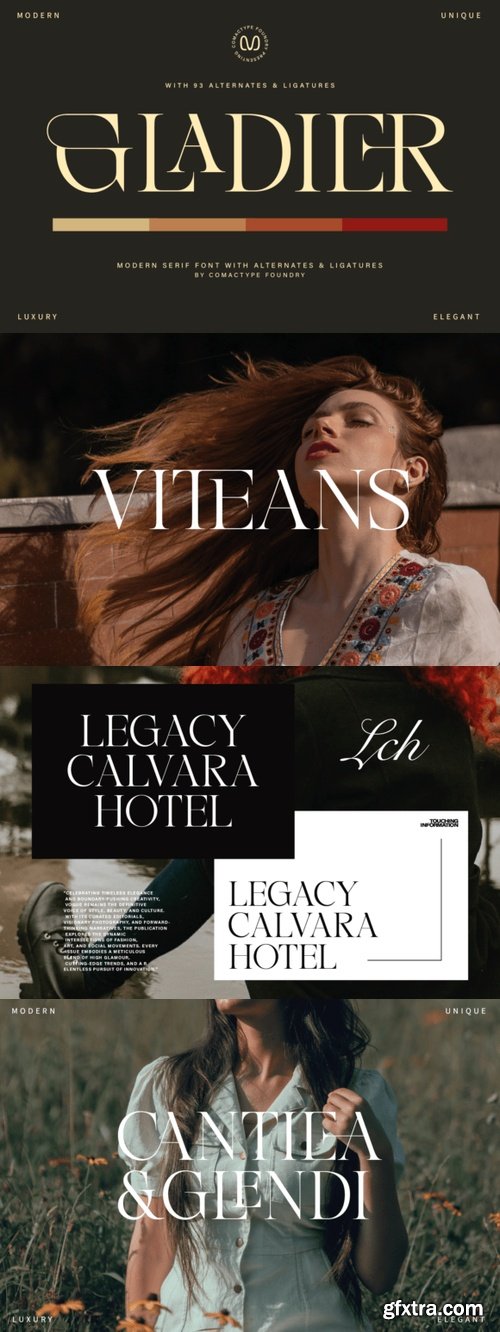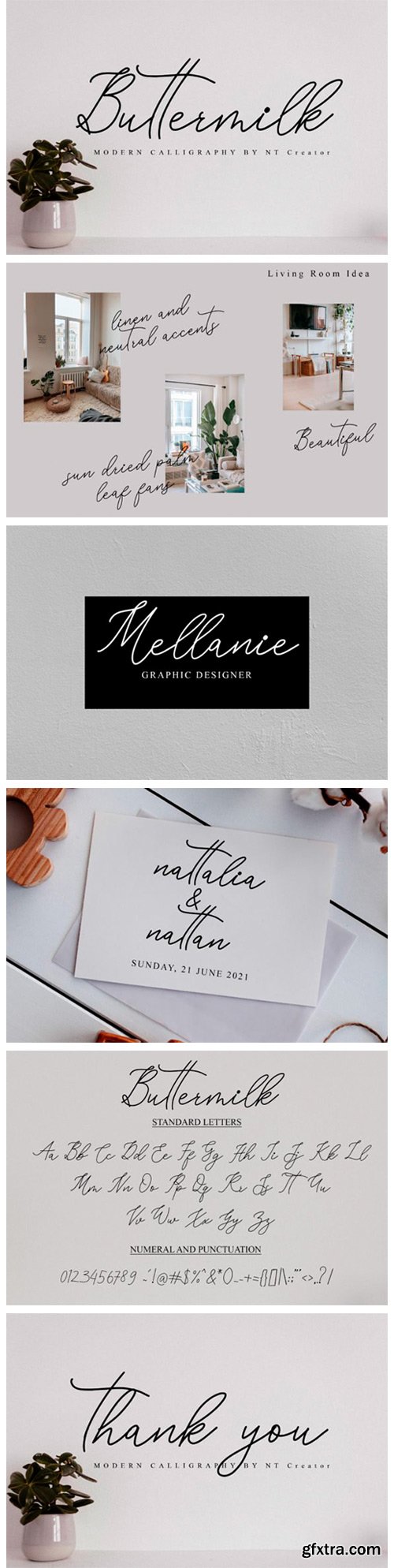
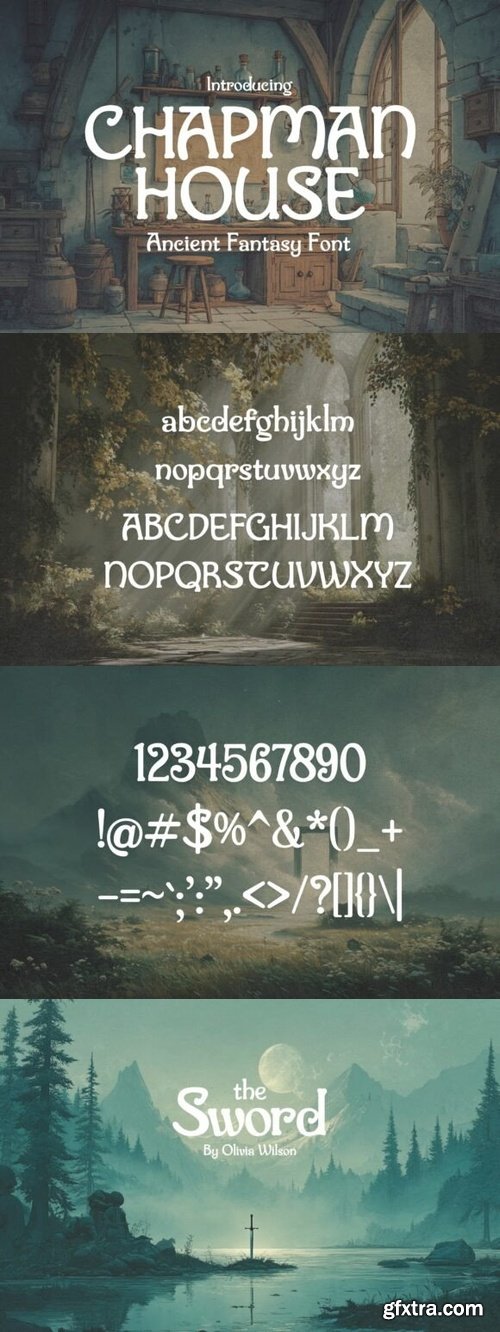
- Step into the realm of legends with Chapman House.
- Forged in the fires of fantasy and steeped in the ink of ancient scrolls, Chapman House is a medieval-inspired typeface designed for creators who dare to dream beyond the veil of reality.
- With letterforms echoing the calligraphy of forgotten kingdoms, this font evokes the magic of weathered tomes, royal decrees, and arcane prophecy. Every curve and serif breathes with the spirit of adventure, perfect for conjuring up boundless worlds, legendary quests, mystical branding, and titles that demand reverence.
- Whether you’re crafting the logo of a guild, the title of a fantasy novel, a game interface steeped in lore, or spellbinding packaging, Chapman House delivers with unmistakable charm and gravitas. Its characters are both readable and ornamental, balancing function with pure fantastical flair.
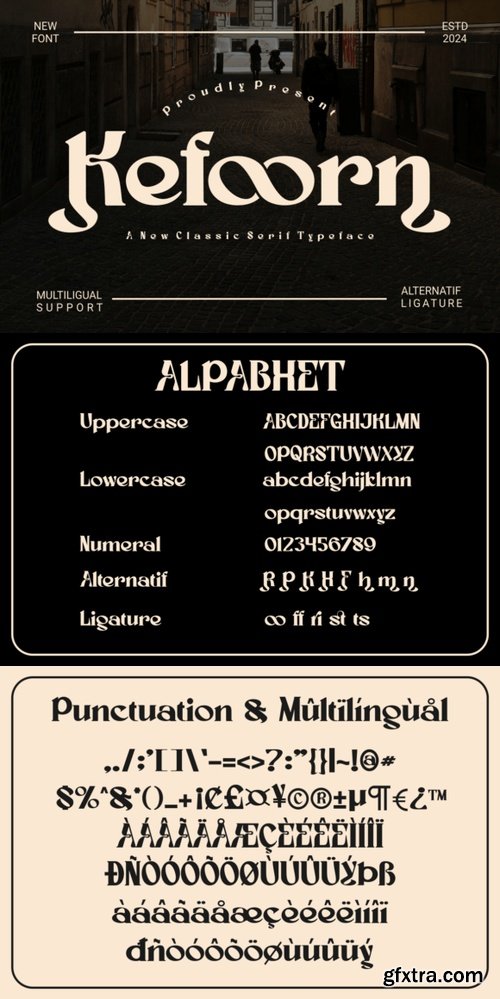
- Kefoorn is a bold and stylish serif typeface with a modern classic twist. Its sharp yet elegant characters, combined with unique ligatures, make it the perfect font for branding, editorial layouts, and high-end packaging. Designed with multilingual support, Kefoorn effortlessly elevates your design projects with a timeless flair.
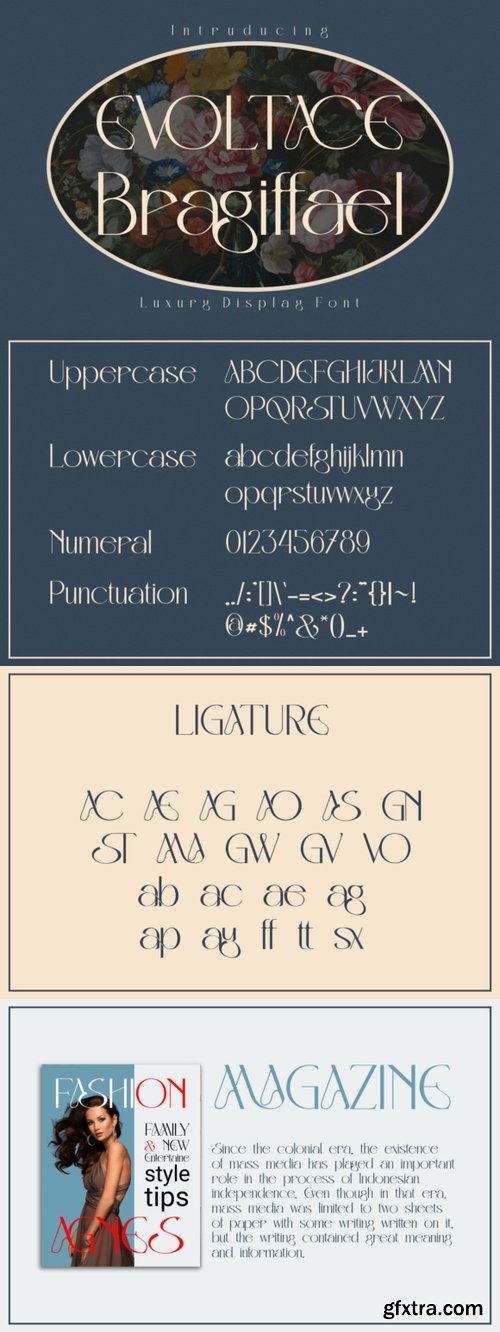
- Evoltace Bragiffael is a high-class luxury display font that captures attention with its sophisticated, artistic letterforms and refined details. Ideal for logos, fashion branding, and event invitations, Evoltace embodies elegance and exclusivity. Its unique glyphs and alternative characters make every design feel curated and couture.
- Bubble Bloom is a bubbly and joyful font that will add a splash of fun to all your creative projects! With its rounded, playful letterforms, this font is perfect for kids’ themes, party invitations, product packaging, stickers, and social media posts.
- It’s PUA encoded and works beautifully with Cricut, Silhouette, and other crafting software.
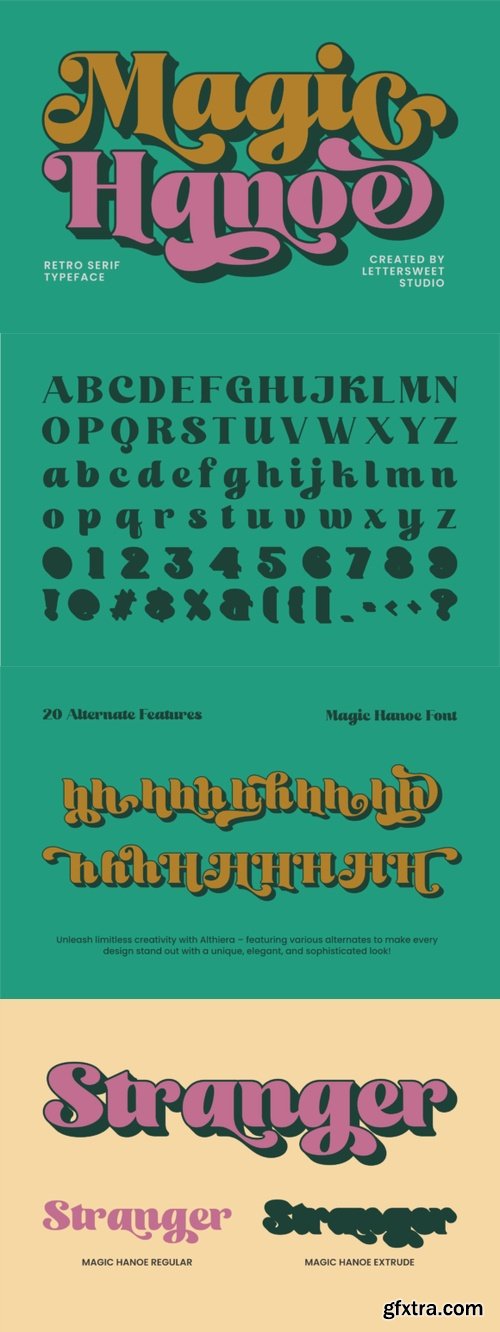
- Step into a world of classic charm with a modern twist through Magic Hanoe, a captivating retro serif font full of personality and flair! Created by Lettersweet Studio, this typeface features expressive curves, bold strokes, and playful vintage vibes that will make your designs truly stand out.
- Perfect for creative projects like vintage posters, unique logos, product packaging, album covers, and retro-inspired branding. Magic Hanoe combines nostalgic style with contemporary energy, bringing a memorable touch to any visual concept.
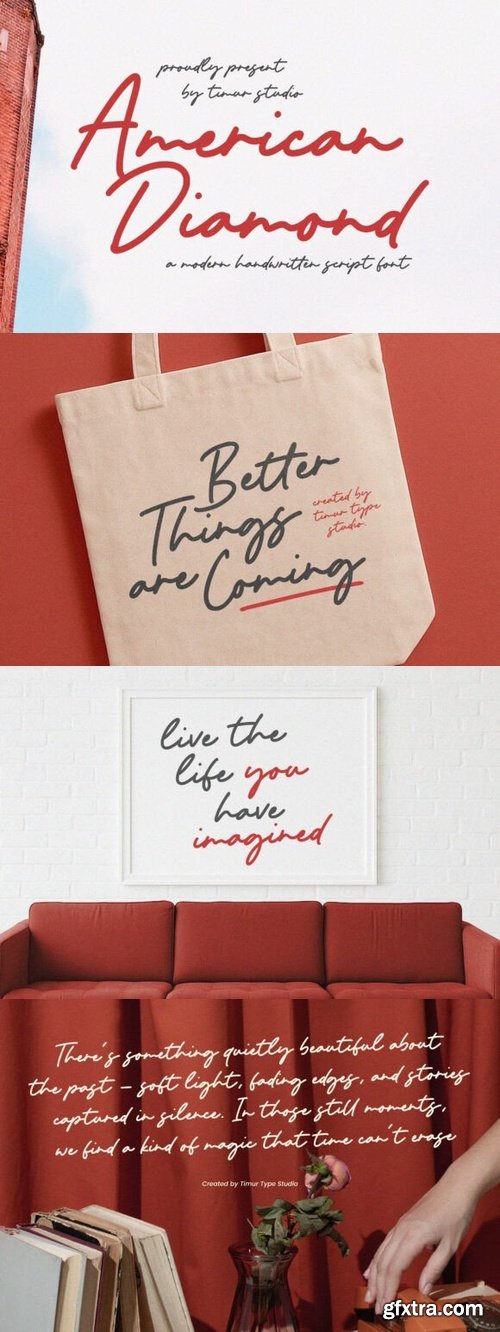
- American Diamond is a Modern Handwritten Script Font This font is a modern handwritten script font that blends elegance with a casual, flowing charm. With its smooth curves and natural strokes, it captures the essence of handwritten calligraphy, making it perfect for invitations, logos, branding, and social media designs. American Diamond adds a sophisticated touch to any project with its stylish yet approachable aesthetic.
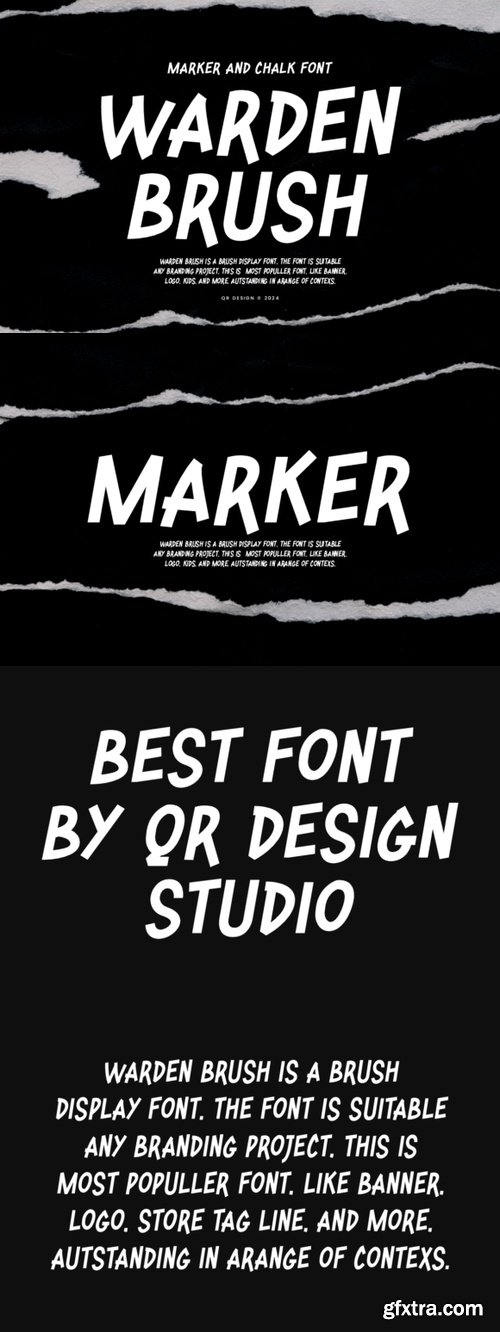
- Warden Brush Font is a bold and authentic display font. The font is suitable for any branding project like logo, sport, and many more. Outstanding in a wide range of contexts.
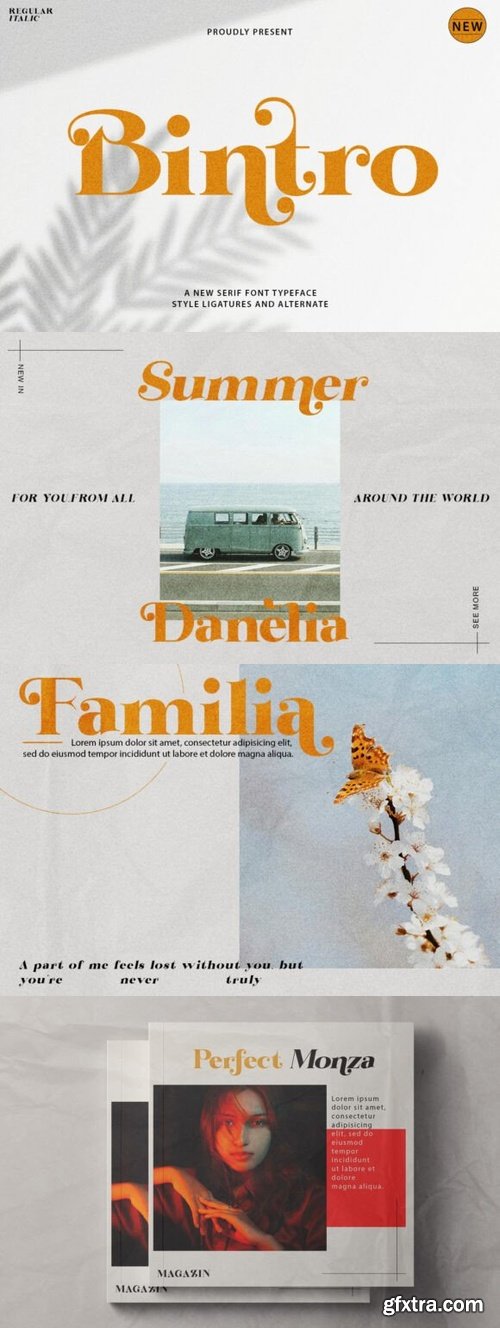
- The Bintro font is a serif typeface characterized by its elegant, classic, and sophisticated style. Its distinctive feature lies in the small decorative strokes or "serifs" at the edges of the letters, making it suitable for editorial design, branding, and creative projects that aim to convey a luxurious and professional impression. Bintro is often used for headlines, logos, or visual elements requiring strong visual appeal.
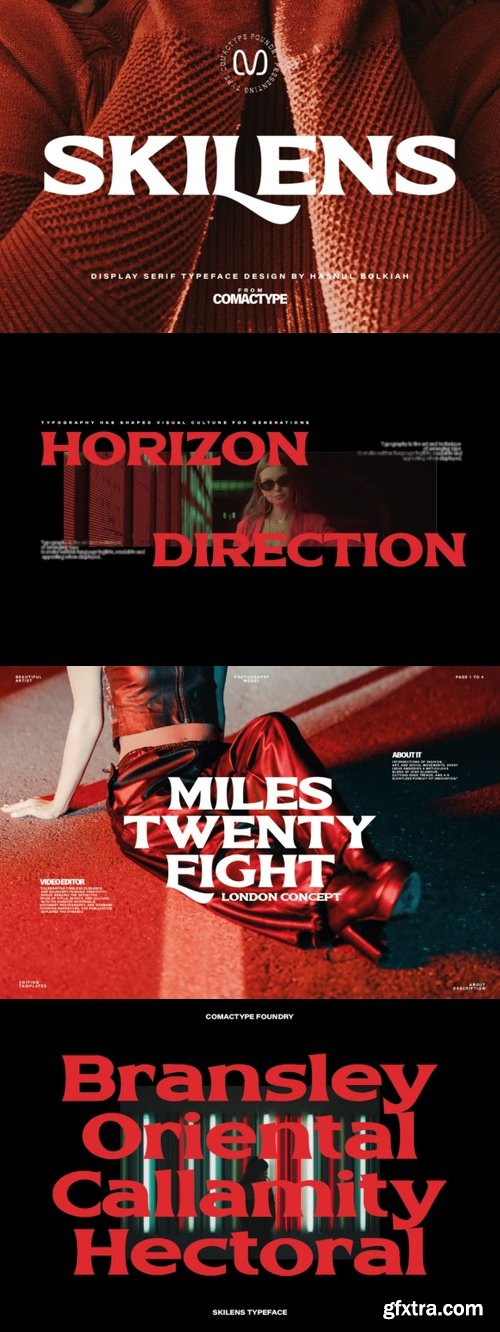
- SKILENS – Where Elegance Meets Boldness Elevate your brand’s visual appeal with Skilens, a display serif typeface that blends classic elegance with modern sophistication. Designed by Hasnul Bolkiah and released by Comatype Foundry, Skilens features bold, striking letterforms that exude luxury and exclusivity. With a selection of unique alternates, this typeface offers versatility for branding, editorials, logos, and standout posters. Make a statement with Skilens – because every detail matters.
Tegur is a modern and futuristic display typeface designed with sharp, geometric forms. This font is perfect for tech-inspired designs, gaming interfaces, and digital branding. Tegur comes in two weights: Thin and Regular, providing flexibility for various creative projects. Additionally, it includes small caps, allowing for even more typographic versatility. Whether you're working on posters, UI designs, or sci-fi-themed visuals, Tegur is the perfect choice for bold and striking typography. Features:
- Thin and Reguler
- Small Caps for unique typographic options
- Geometric and futuristic aesthetic
- Numerals & Punctuation
- Ideal for tech, gaming, UI, branding, and editorial projects
- Ficoria Serif is a modern and classy font with regular and italic type for all branding and logo designs. This modern and classy Serif font has a beautiful character. This font is suitable for invitation card designs, cool logos, movie titles, movie names, business cards, book titles, brand names, and various other designs. Ficoria Serif is a smooth serif font that exudes sophistication and the moment. Its stylish alterations and ligatures make this font a perfect partner for any project.